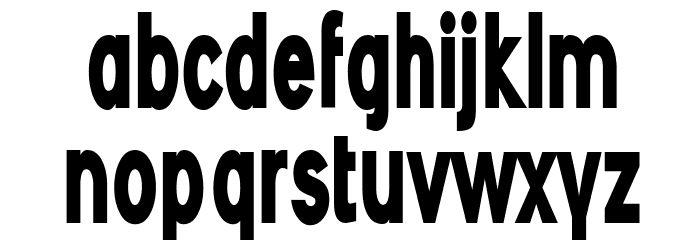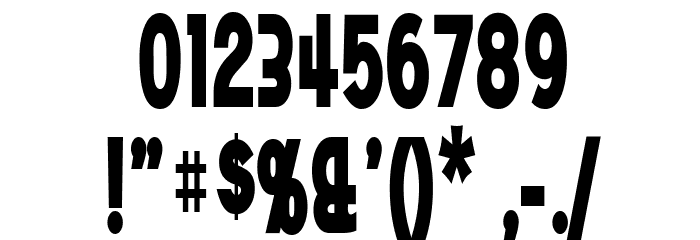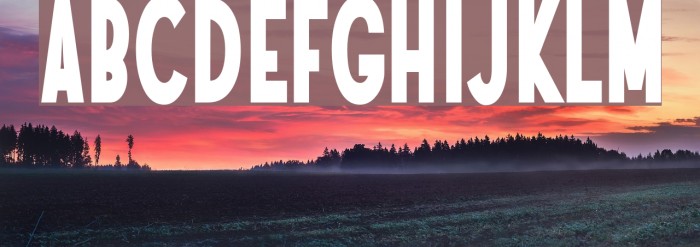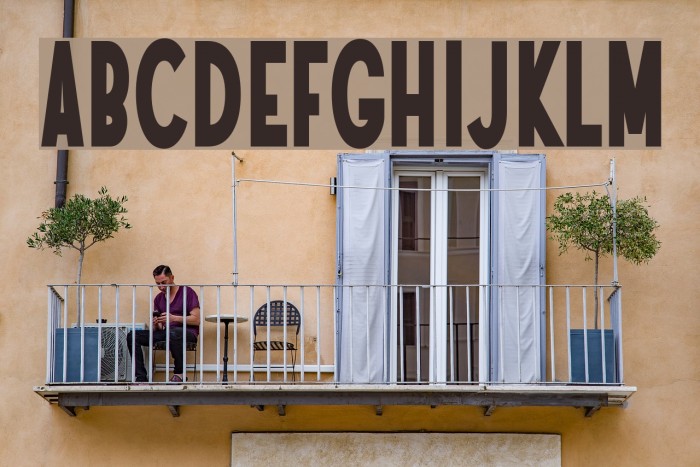
Angostura Black Font
This font is a bold, sans-serif typeface characterized by its strong, impactful presence. The letters are uniformly thick, creating a powerful visual statement. The uppercase and lowercase letters maintain a consistent width, contributing to a cohesive look. The numbers and special characters are designed with the same boldness, ensuring readability and emphasis. This font is ideal for making headlines stand out, as its bold nature commands attention. The spacing between characters is tight, which enhances its compact and dense appearance. The overall style is modern and assertive, suitable for projects that require a strong visual impact.
A bold, sans-serif font with a strong, modern presence and tight character spacing.
- Proposed Projects: Ideal for headlines, posters, branding materials, and any design needing a bold statement.
- Character Spacing: Tight